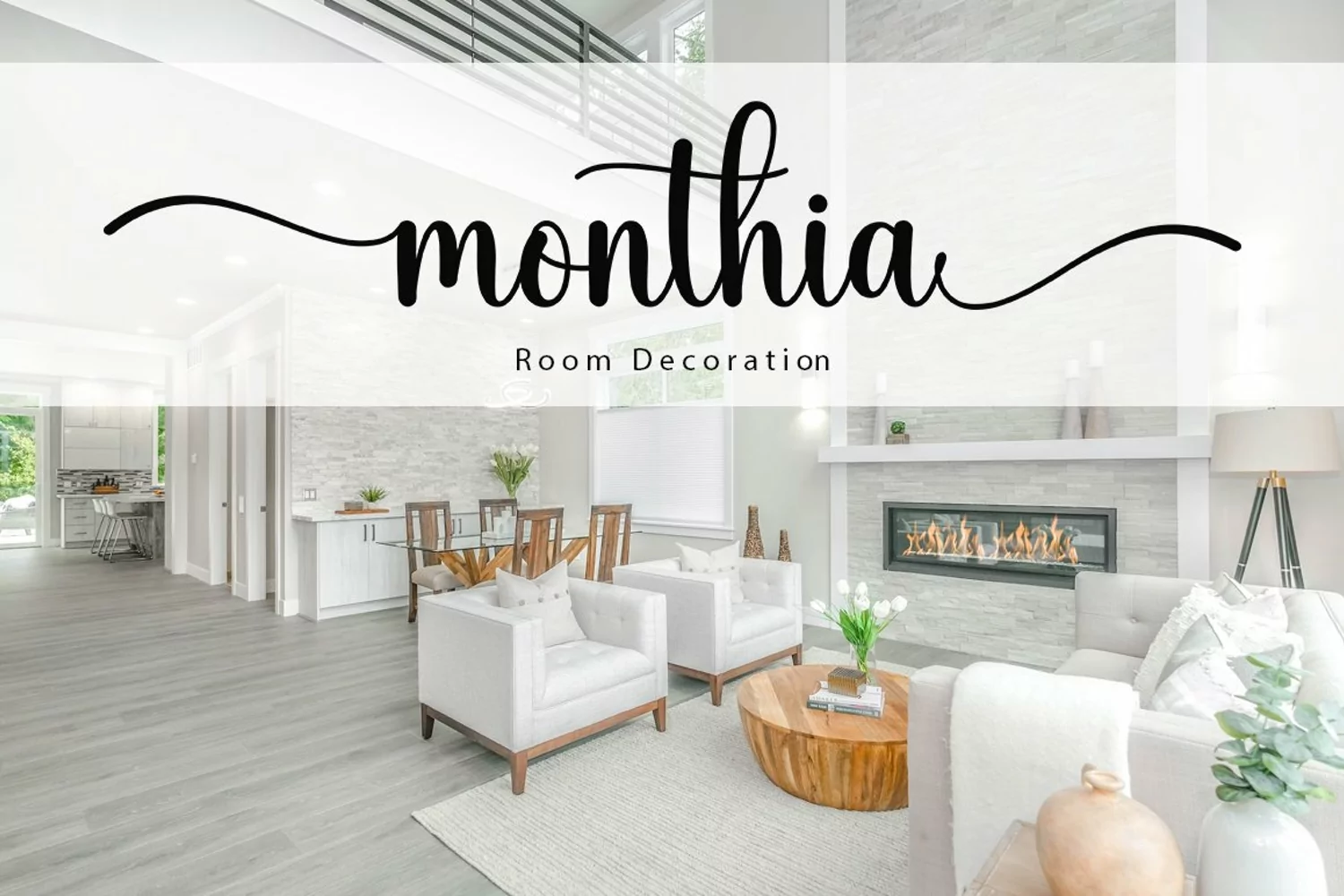
Bintang is a modern calligraphy design. This font is casual and beautiful with swashes. Can be used for various purposes. such as logos, product packaging, wedding invitations, branding, headlines, signage, labels, signatures, book covers, posters, quotes, and more.